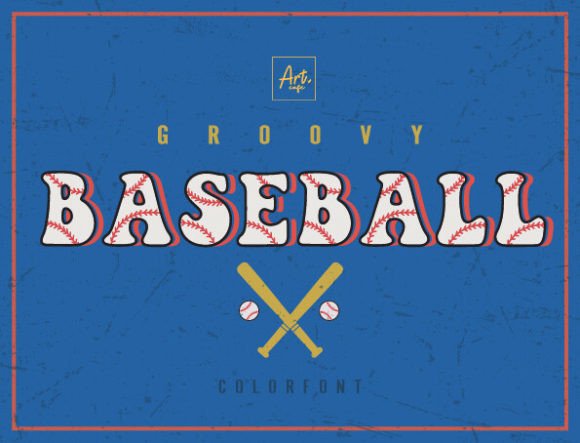
Step Back in Time with the Groovy Baseball Font
Are you looking for a font that captures the essence of America’s favorite pastime? Do you want to add a touch of nostalgia to your designs, while still making a bold statement? Look no further than the Groovy Baseball font, a vibrant blend of retro aesthetics and playful bravado that’s perfectly tuned for the sports world.
The Spirit of Game Day
The Groovy Baseball font embodies the spirit of Game Day, evoking memories of summertime, sunshine, and the crack of the bat. Its ingenious design combines classic elements of traditional baseball typography with a modern twist, making it perfect for any sports-related project. Whether you’re creating posters, headlines, or merchandise, this font is sure to take center stage and make a lasting impression.
A Retro Aesthetic with a Modern Edge
The Groovy Baseball font boasts a unique, hand-drawn design that’s reminiscent of vintage baseball signs and scoreboards. Its bold, playful lines and curves are sure to grab attention, while its clean and legible structure ensures that your message gets across with ease. This font is perfect for designers and crafters who want to add a touch of nostalgia to their work, without sacrificing style or readability.
The Groovy Baseball font is a versatile typeface that’s perfect for a wide range of applications. Designers can use it to create stunning posters, flyers, and brochures for sports events, while crafters can use it to make personalized merchandise, such as t-shirts, hats, and water bottles. Whether you’re working on a professional project or a DIY craft, this font is sure to add a touch of personality and flair.
Key Features of the Groovy Baseball Font
- Retro aesthetic: Inspired by vintage baseball signs and scoreboards, this font boasts a unique, hand-drawn design that’s sure to evoke memories of summertime and sunshine.
- Playful bravado: With its bold, playful lines and curves, this font is perfect for making a statement and grabbing attention.
- Clean and legible: Despite its bold design, the Groovy Baseball font is clean and easy to read, making it perfect for use in a variety of applications.
- Vibrant colors: This font comes in a range of vibrant colors, allowing you to match it to your brand or project’s color scheme.
How to Use the Groovy Baseball Font
The Groovy Baseball font is easy to use and can be applied to a wide range of projects. Here are a few ideas to get you started:
- Posters and flyers: Use the Groovy Baseball font to create eye-catching posters and flyers for sports events, tournaments, and leagues.
- Merchandise: Add a touch of personality to your merchandise, such as t-shirts, hats, and water bottles, with this fun and playful font.
- Headlines and titles: Use the Groovy Baseball font to add a bold and eye-catching touch to your headlines and titles.
The Groovy Baseball font is a unique and versatile typeface that’s perfect for designers and crafters who want to add a touch of nostalgia and personality to their work. With its retro aesthetic, playful bravado, and clean design, this font is sure to take center stage on any poster, headline, or merchandise. So why not step back in time and give the Groovy Baseball font a try? Your designs are sure to be a home run!